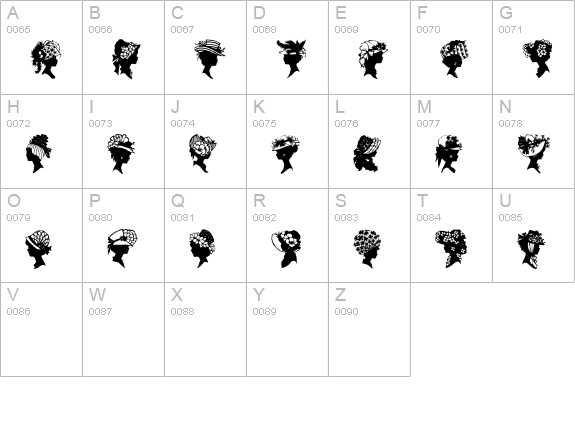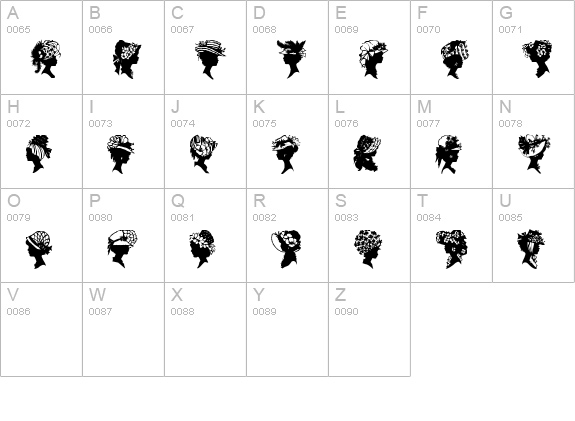
DBL Faces from the past Font Details
DBL Faces from the past font is a unique and versatile typeface that brings a touch of vintage charm to any design project. This font features two distinct faces that beautifully complement each other, offering endless possibilities for creative expression. With its classic yet modern aesthetic, DBL Faces from the past font is perfect for adding a nostalgic feel to logos, posters, branding, and more. Best of all, DBL Faces from the past font is available for free download at FontsMarket.com. Whether you're a professional designer or a DIY enthusiast, this font is a must-have addition to your typography collection. Download it today and start creating stunning designs with ease and style.